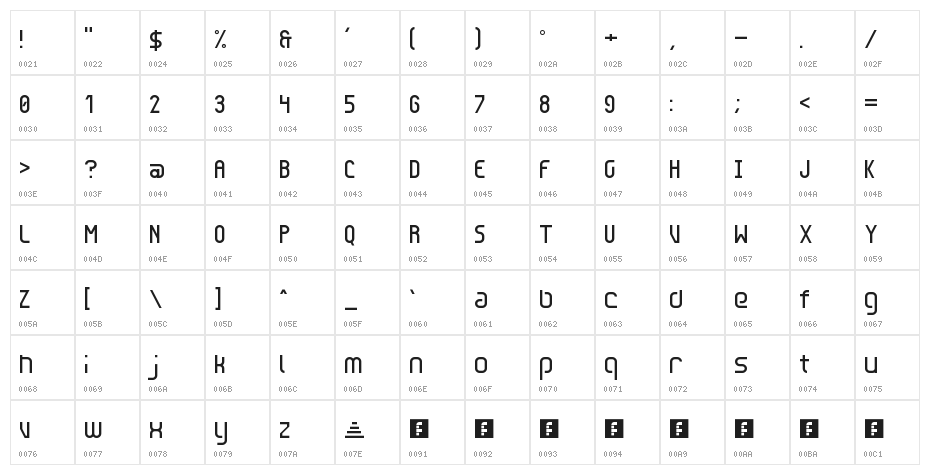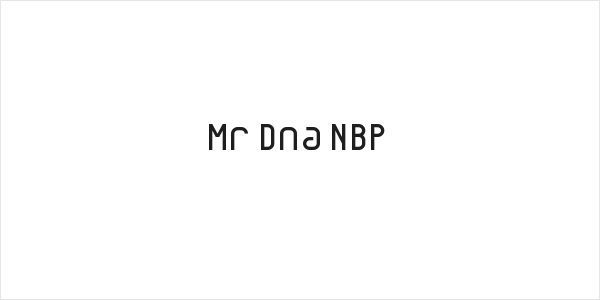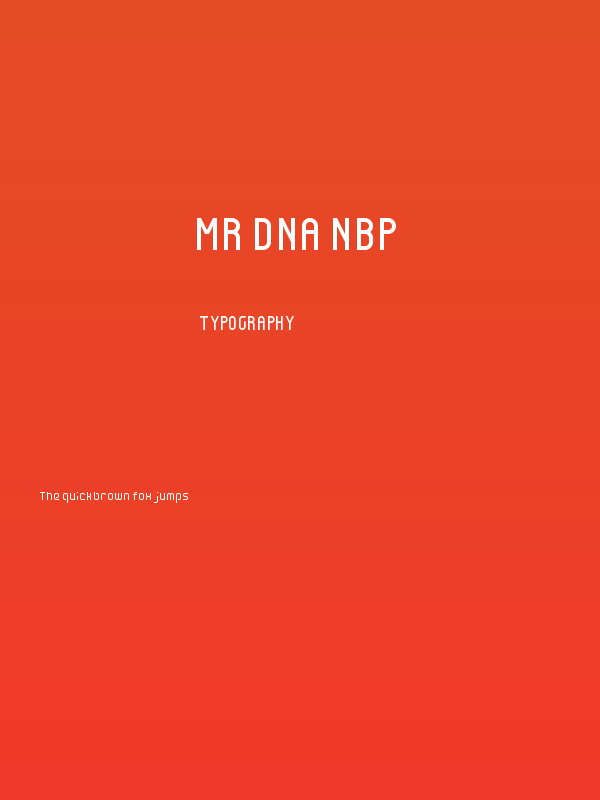
Mr Dna NBP Font
Mr Dna NBP Description
This font features a modern, geometric design with clean lines and a minimalist aesthetic. The uppercase letters are uniform in height and width, creating a balanced and structured appearance. The lowercase letters maintain a consistent style, with rounded edges that soften the overall look. The numerals are clear and legible, matching the style of the alphabet. Special characters are included, maintaining the same geometric and minimalist design. This font is highly versatile, suitable for a variety of design projects that require a contemporary and clean look.